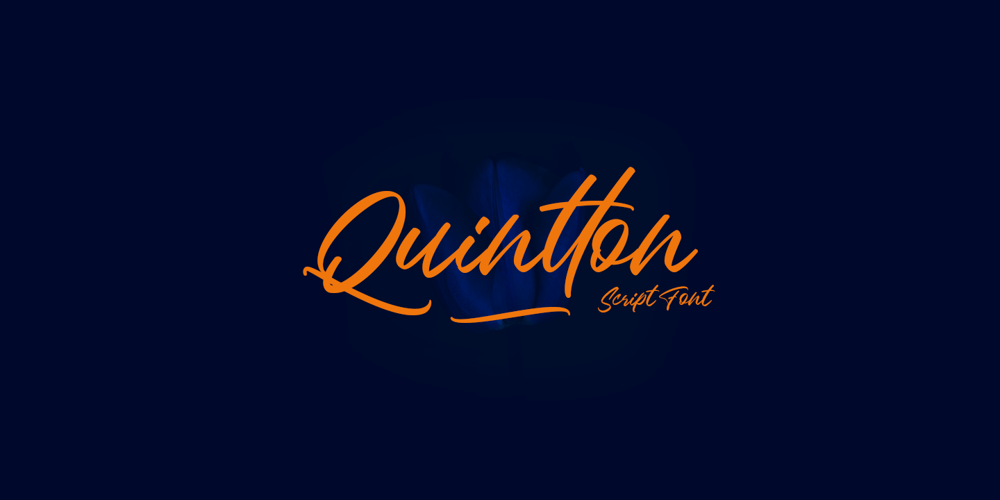
Quintton Font Family was designed by Tubagus Iqbal T and published by TypoBureau Studio. Quintton contains 2 styles and family package options. Quintton script is a casual clean brush stroke font, perfect for logo design, branding, invitations, t-shirts print, mock up, magazines, signage and so much more. With its handmade feel, Quintton is perfect for your upcoming projects so don’t miss out.